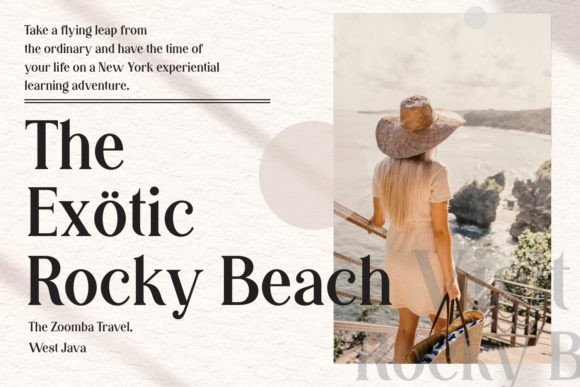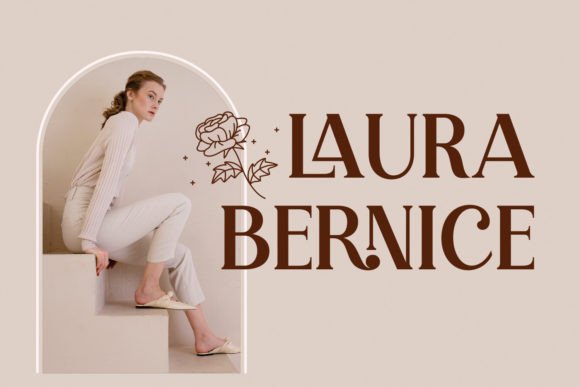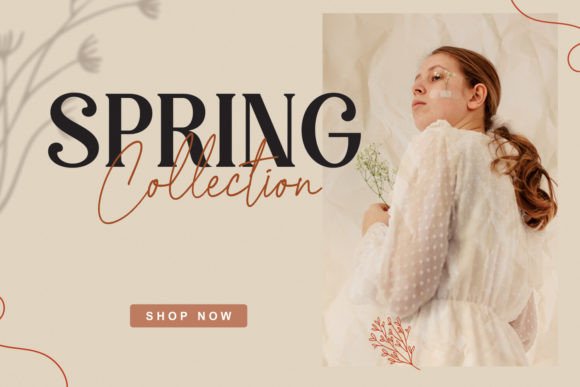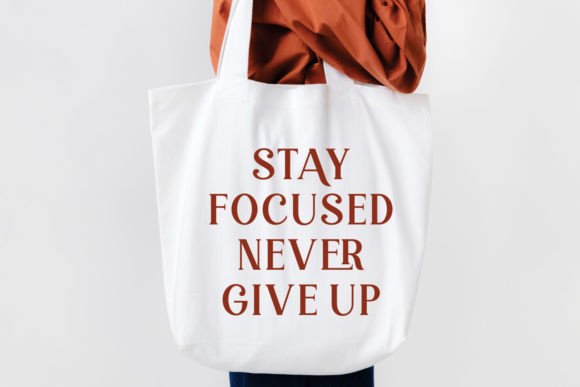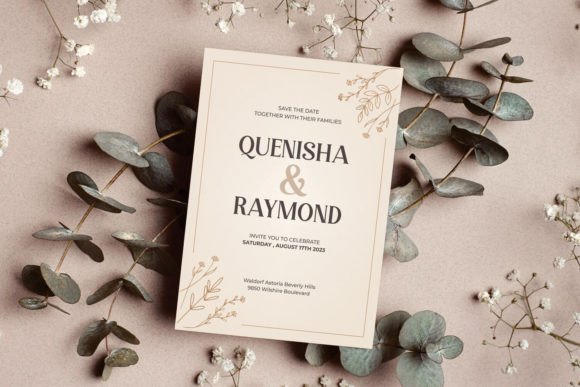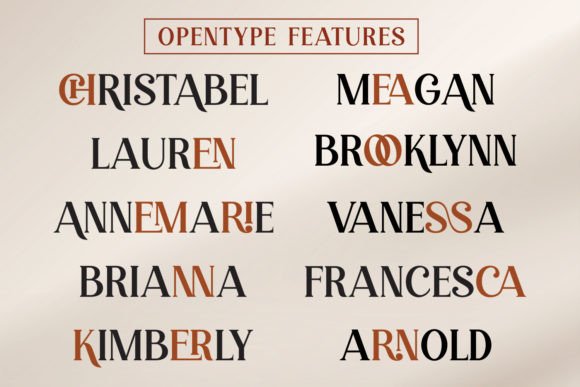
Introduction to Kingstone Font
Introducing the majestic “Kingstone Serif Fonts,” a typeface that exudes power, elegance, and timeless appeal.
With its commanding presence and exquisite details, this font is designed to make a bold statement in your designs Let the “Kingstone Serif Fonts” reign over your projects and elevate them to new heights of sophistication.
Key Features of Kingstone Font